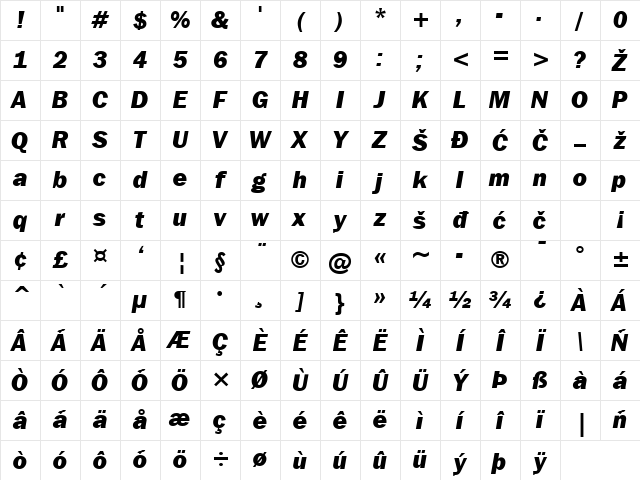
FrankfurtGothicHeavy Italic
Design Context for FrankfurtGothicHeavy
FrankfurtGothicHeavy takes a clean, functional approach - its unadorned letterforms prioritise legibility and work reliably across screen and print environments. The slanted form adds forward momentum and visual energy.
Font Pairing: Works well alongside a characterful serif or display font that can carry the expressive load while FrankfurtGothicHeavy handles the functional copy.
Pro Tip: Use FrankfurtGothicHeavy for UI labels, navigation, and short-form body copy where clean legibility is the priority.